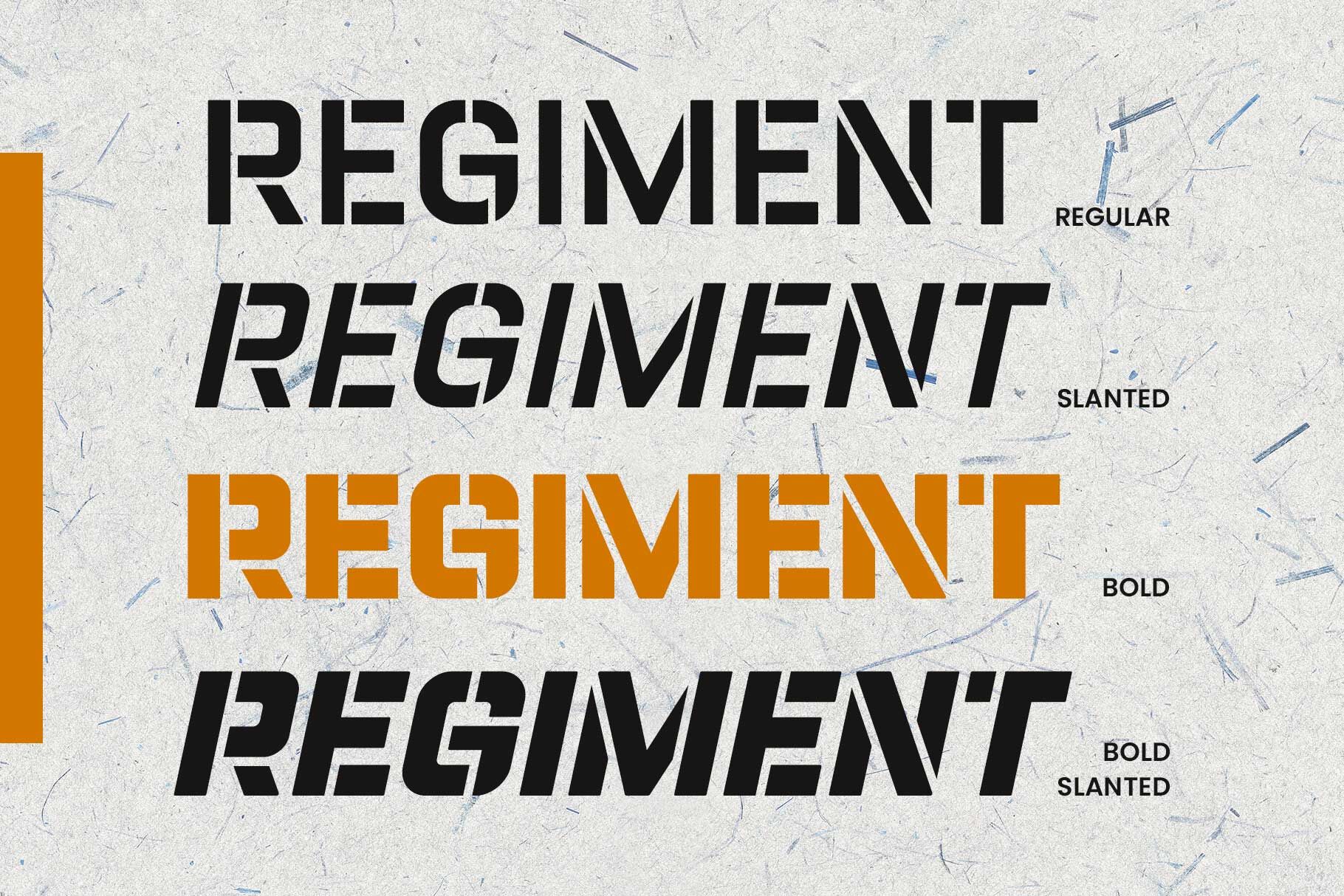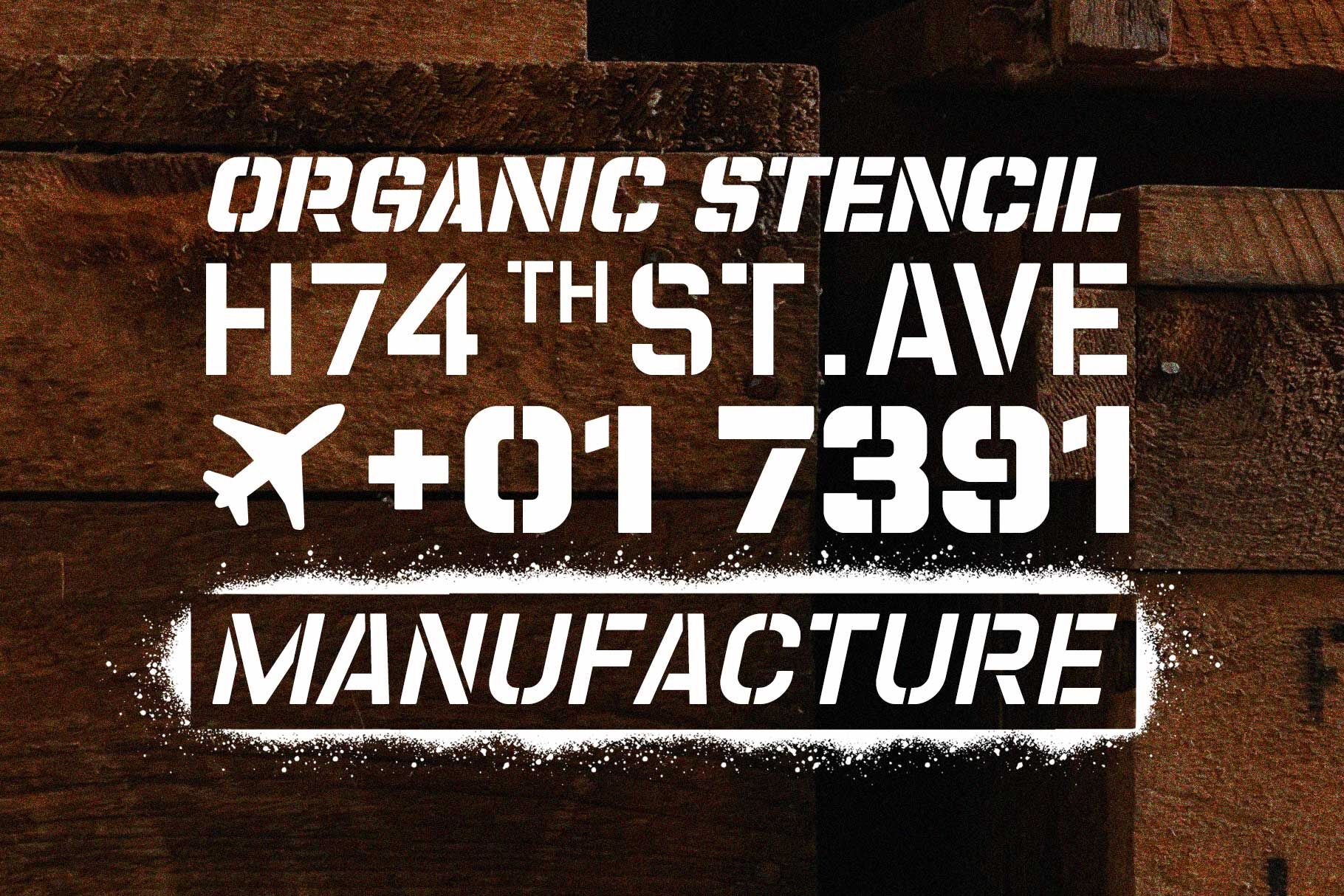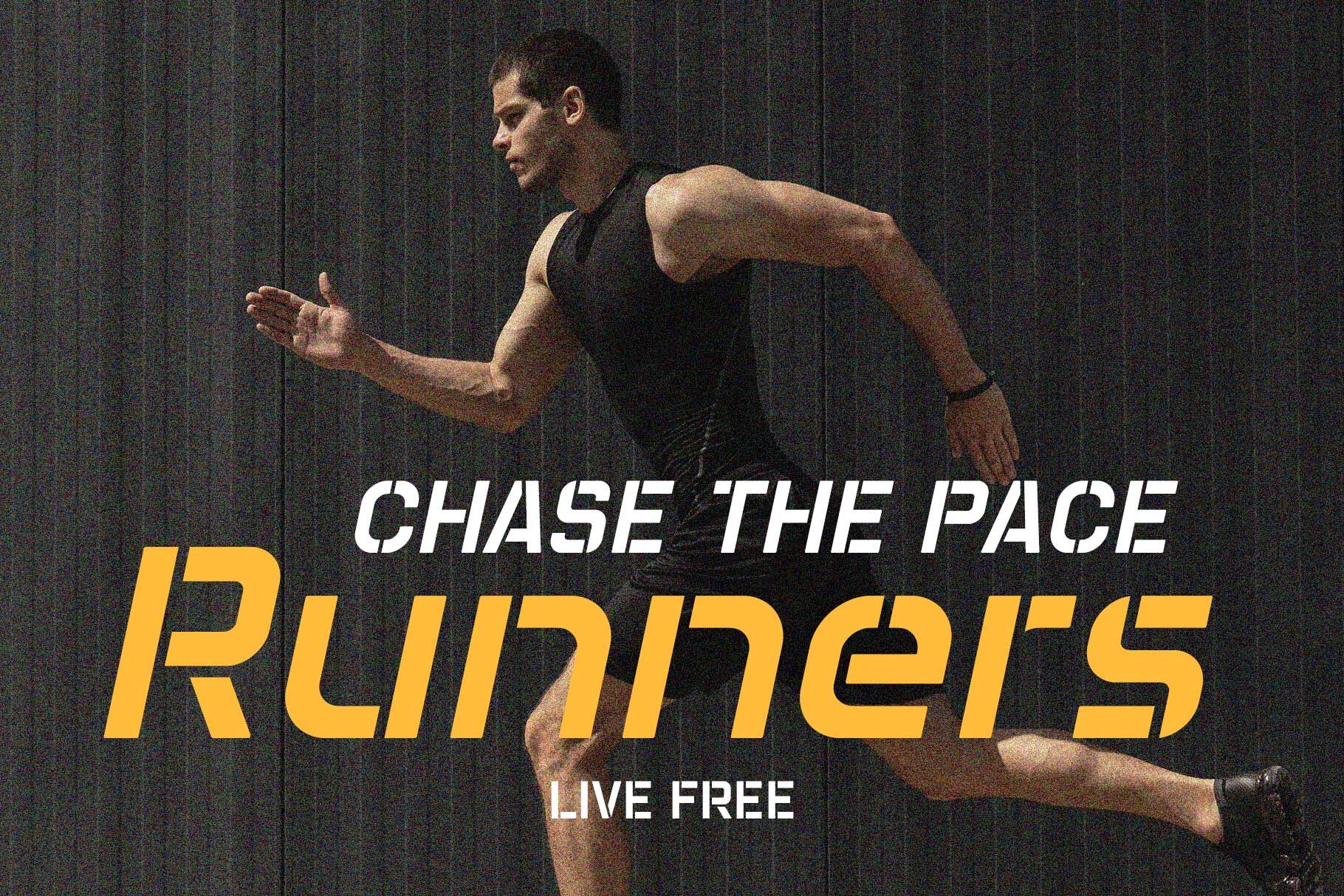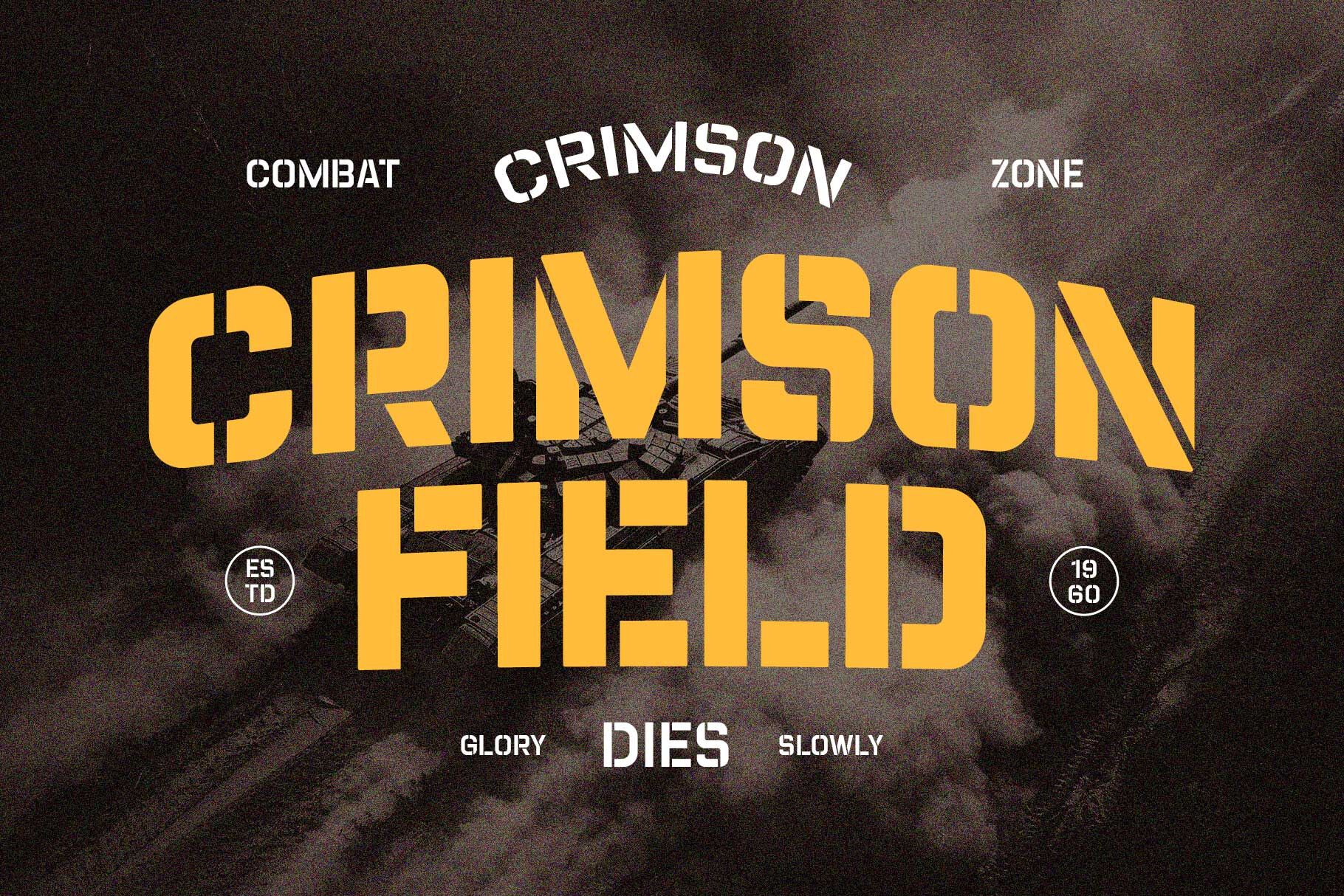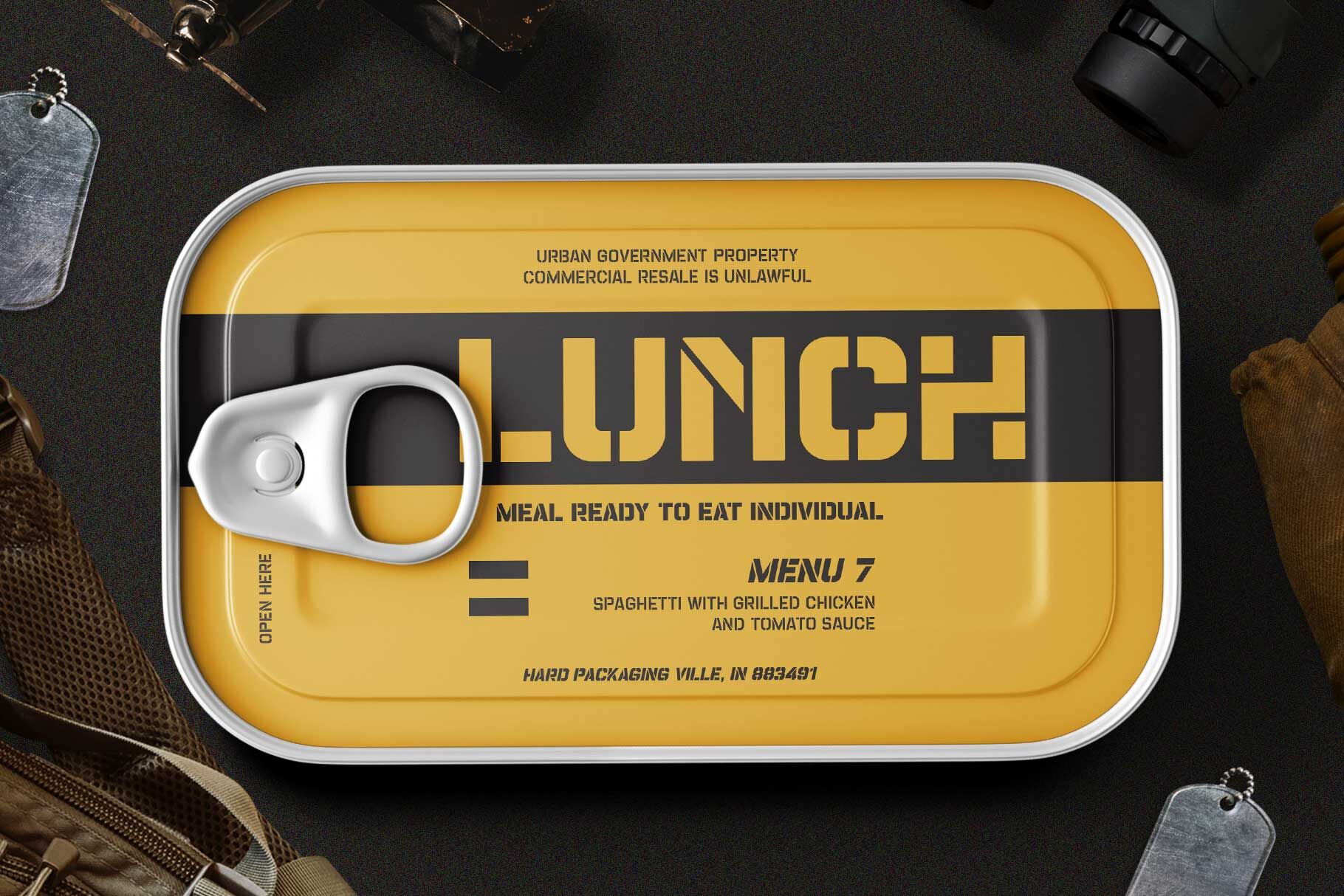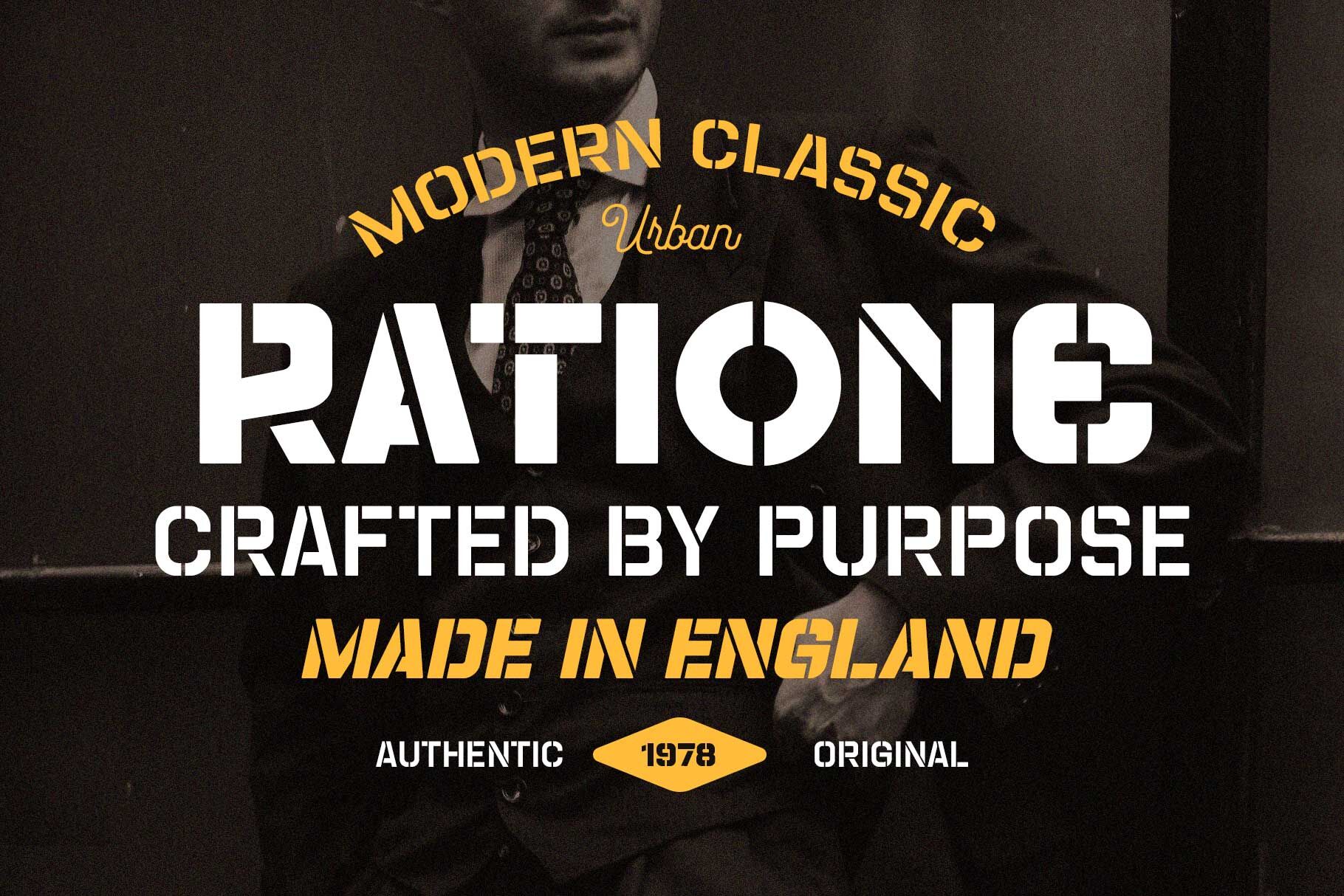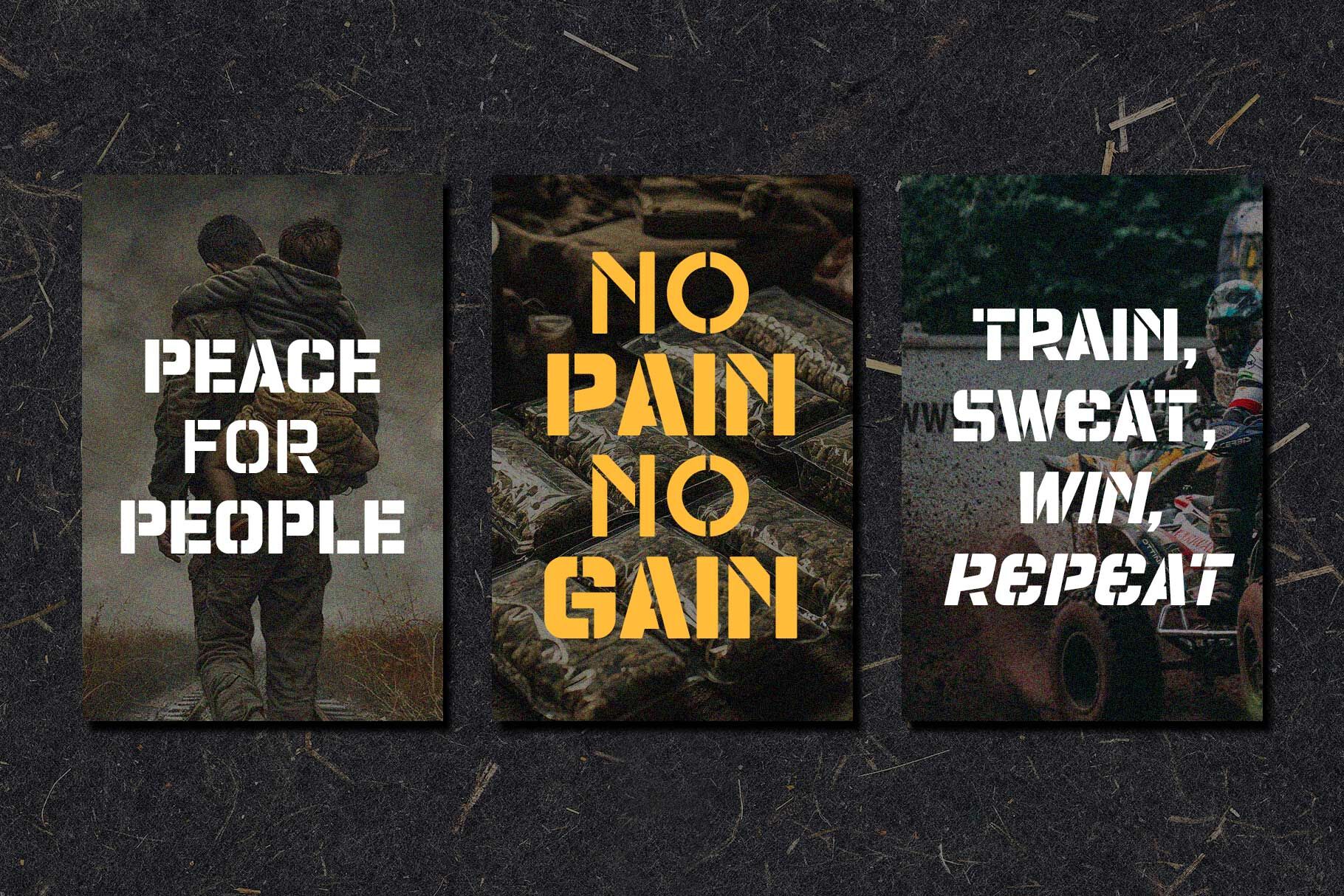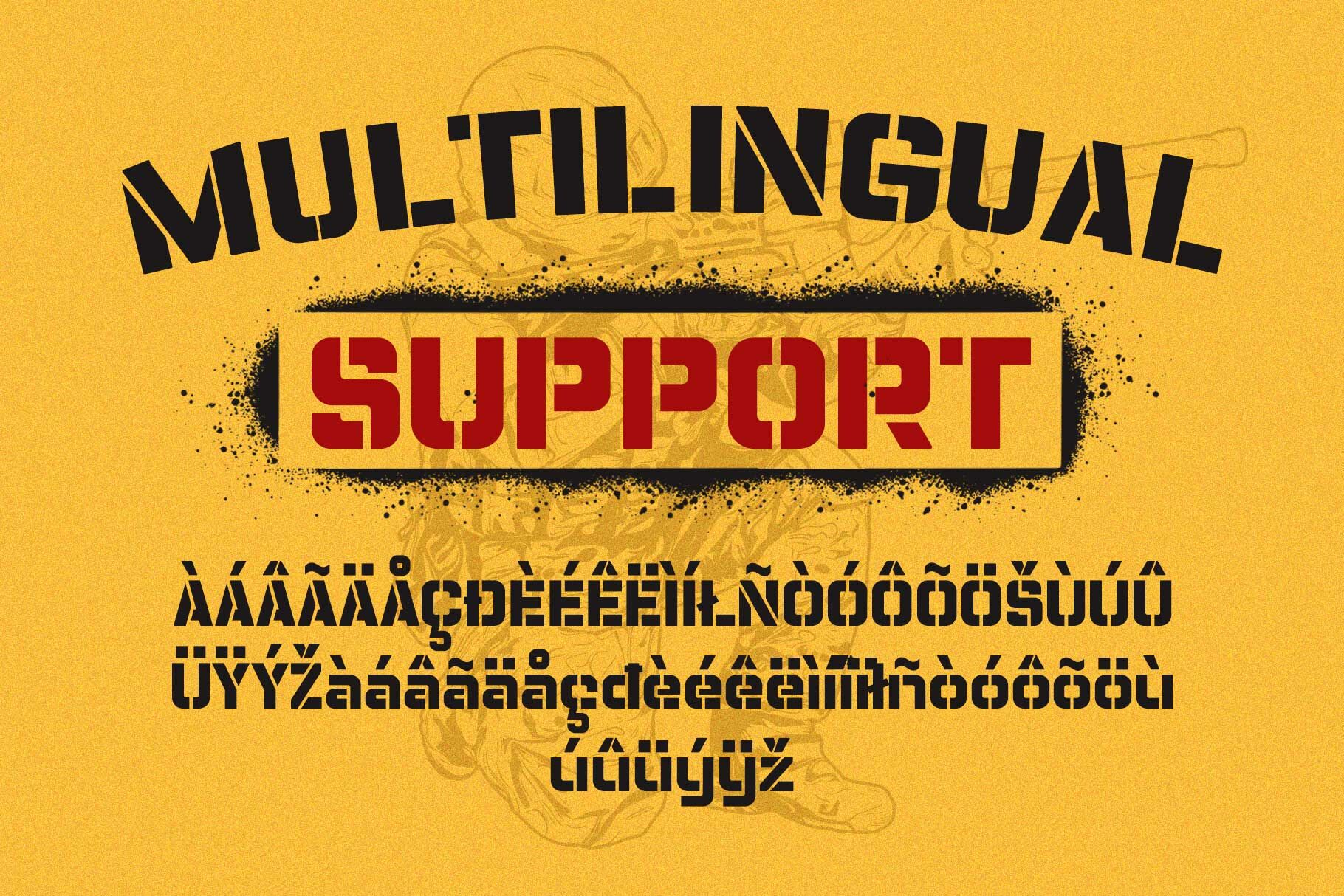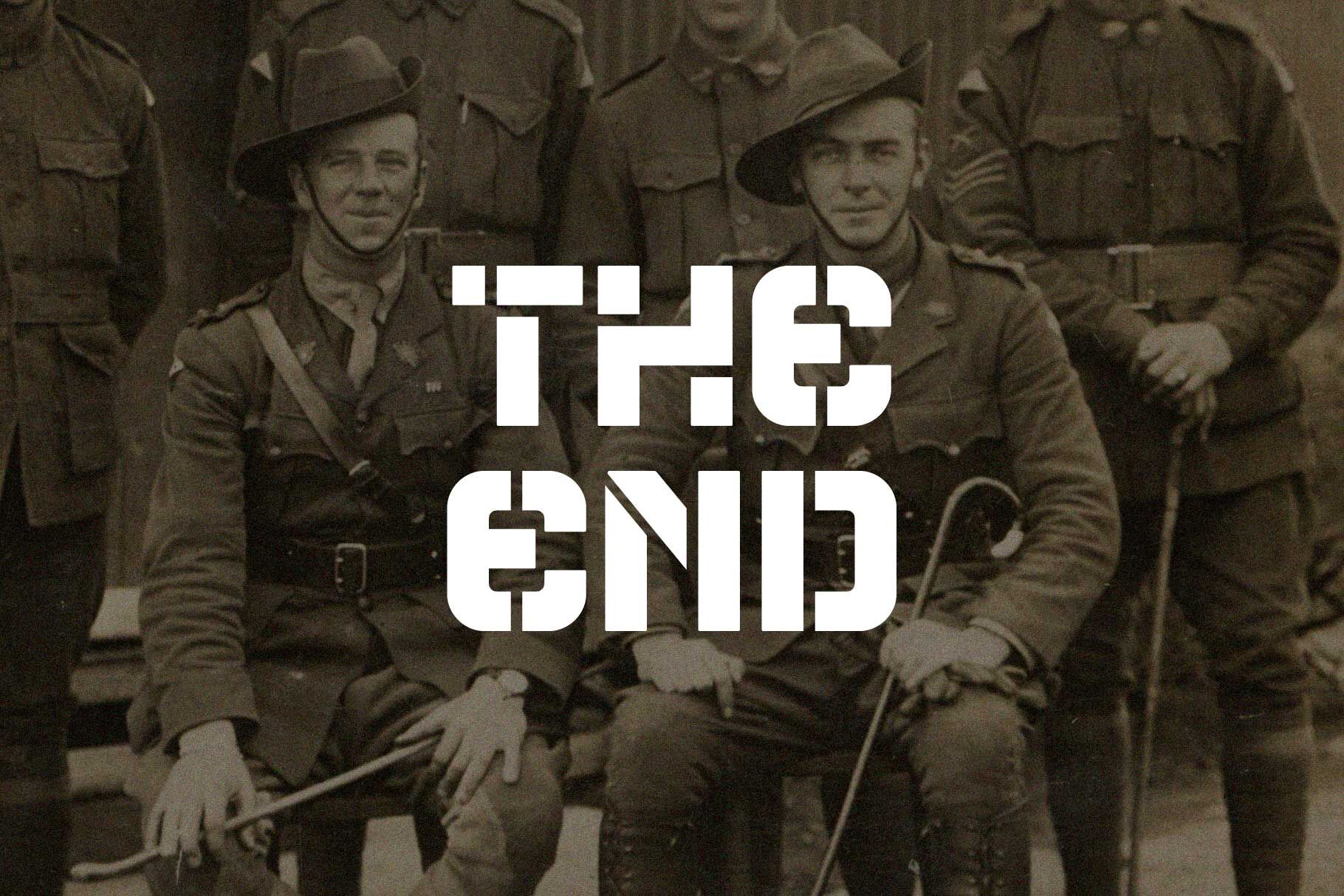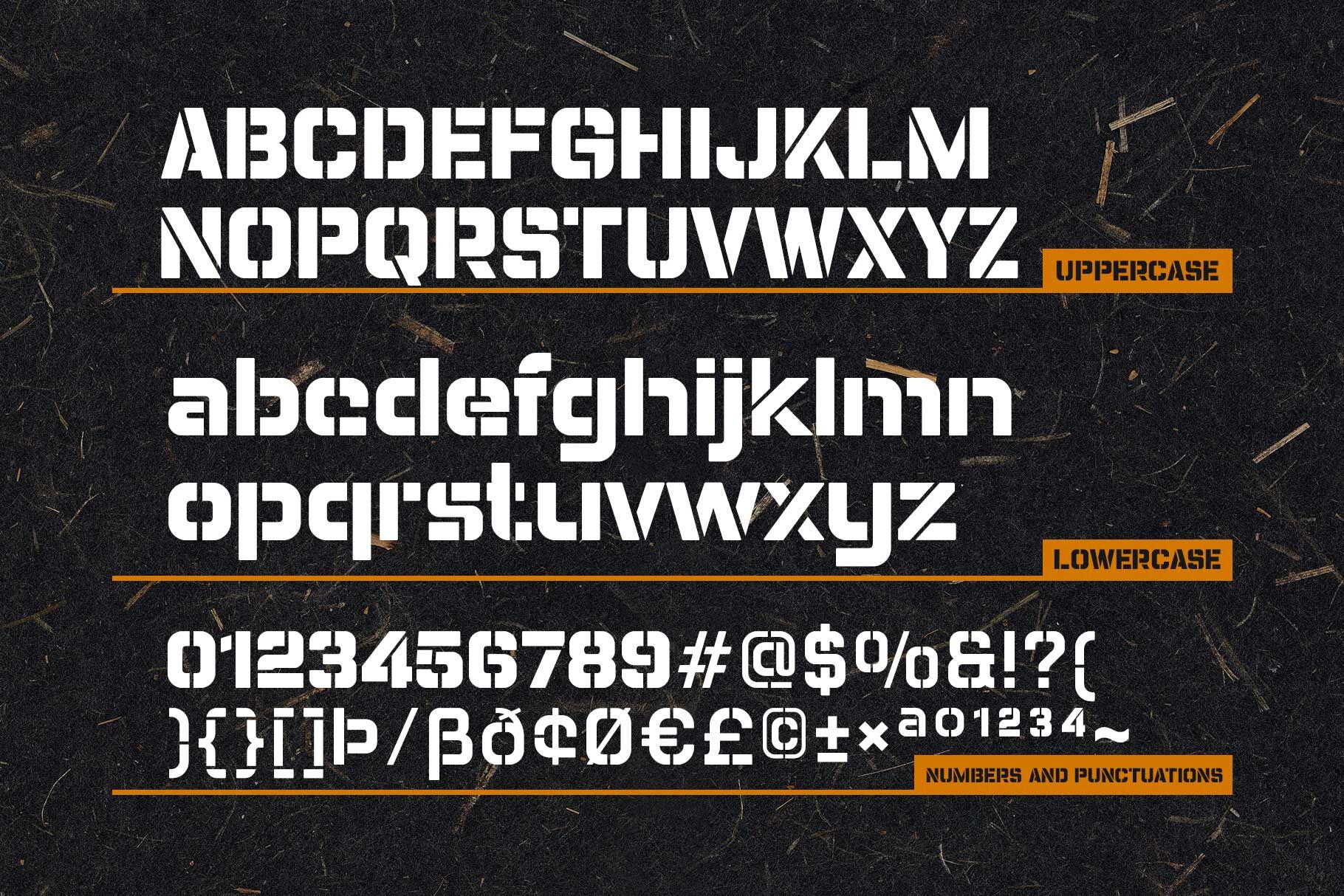
Champions Stencil is a bold modern stencil font with distinctive intersecting cuts—blending sporty energy with military precision. Its geometric construction offers a clean and structured look while still standing out with confident, rugged charm.
This font comes in 2 weights plus matching slanted styles, giving you versatile options to express both strength and speed in your designs.
Perfect for logos, gaming, posters, stickers, emblems, jerseys, badges, branding, and bold typographic statements.
Champions Stencil : Regular & Slanted
Champions Stencil : Bold & Bold Slanted
Uppercase
Lowercase
Numbers & punctuations
Symbols
Multilingual support